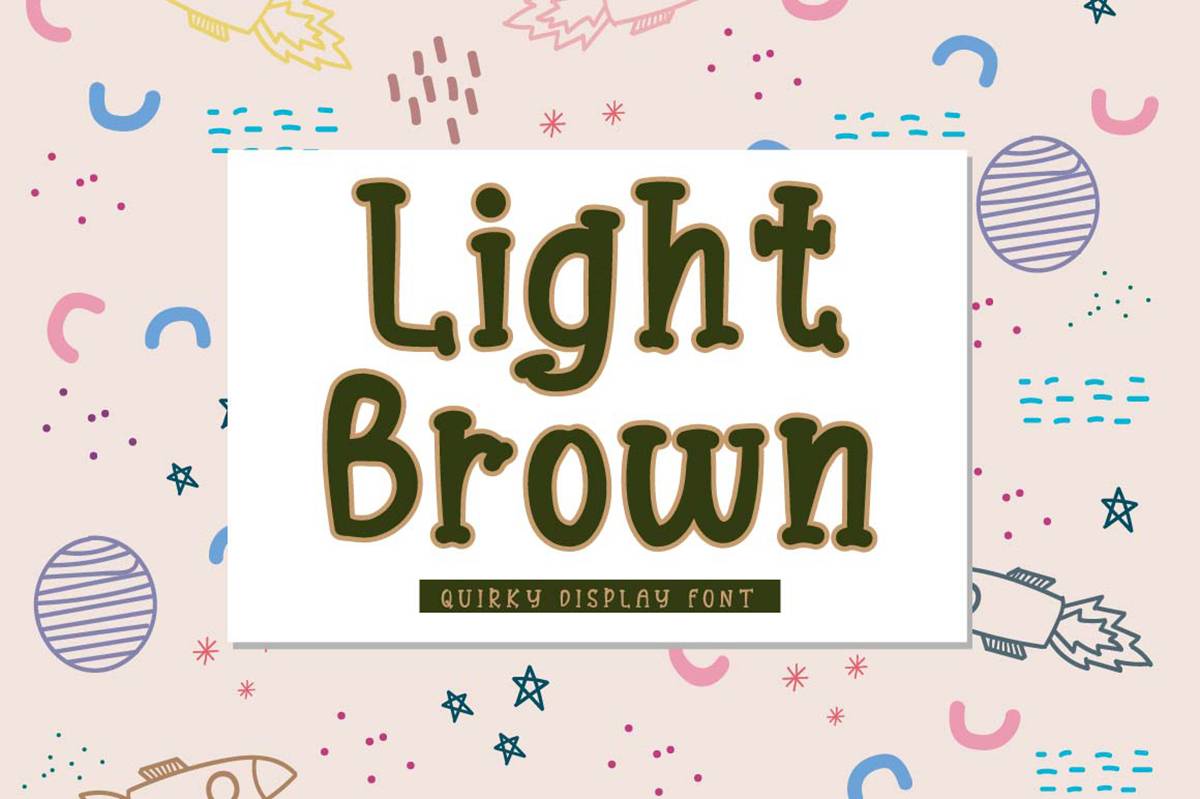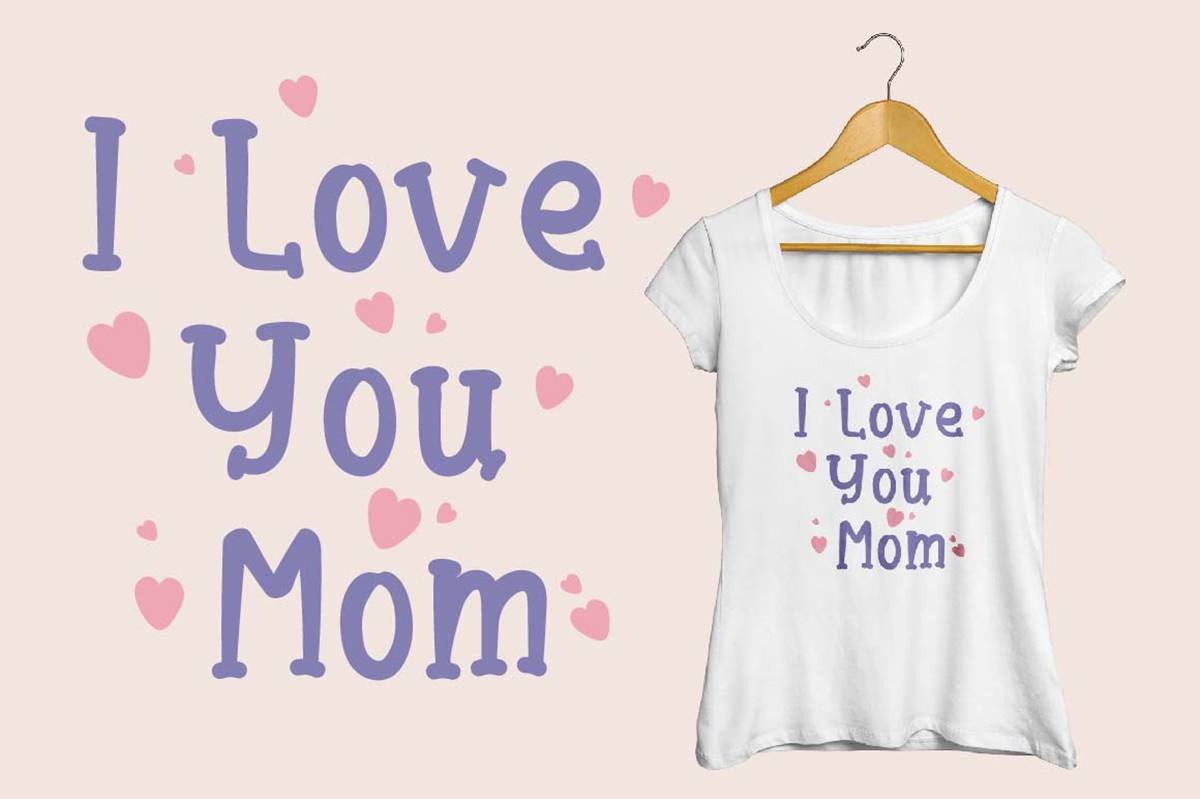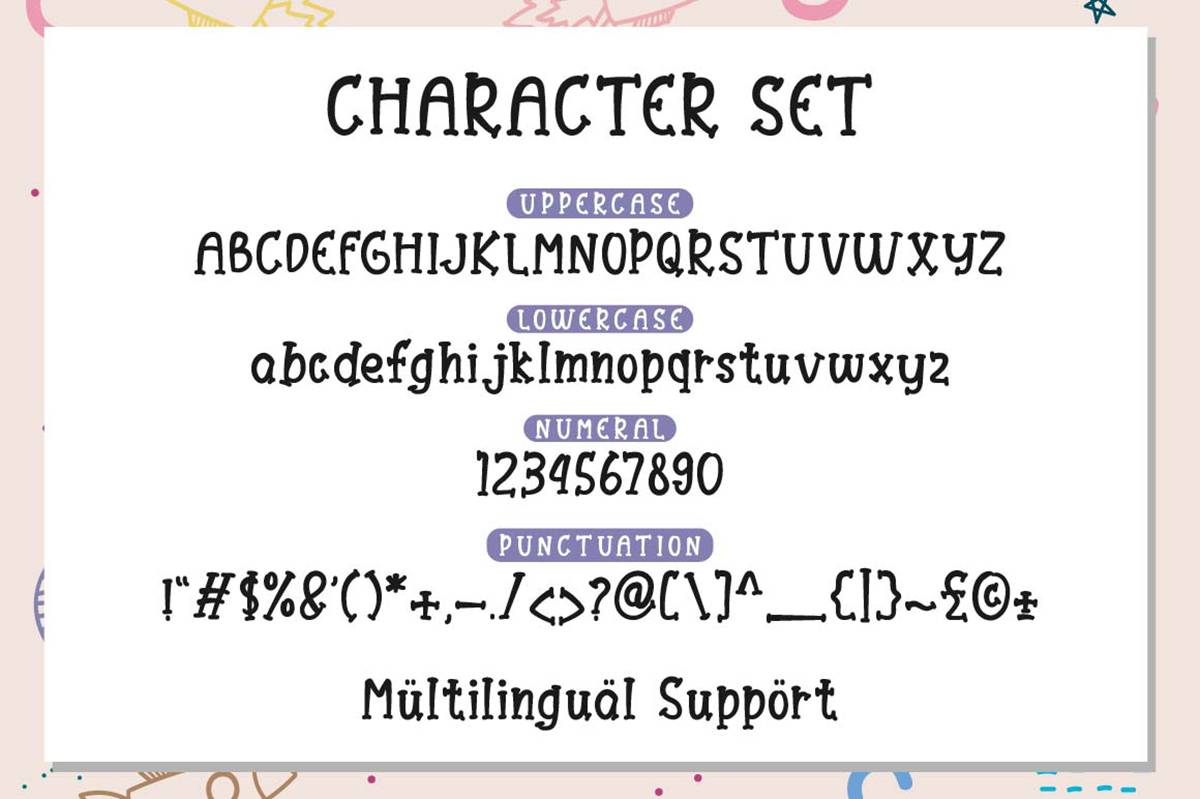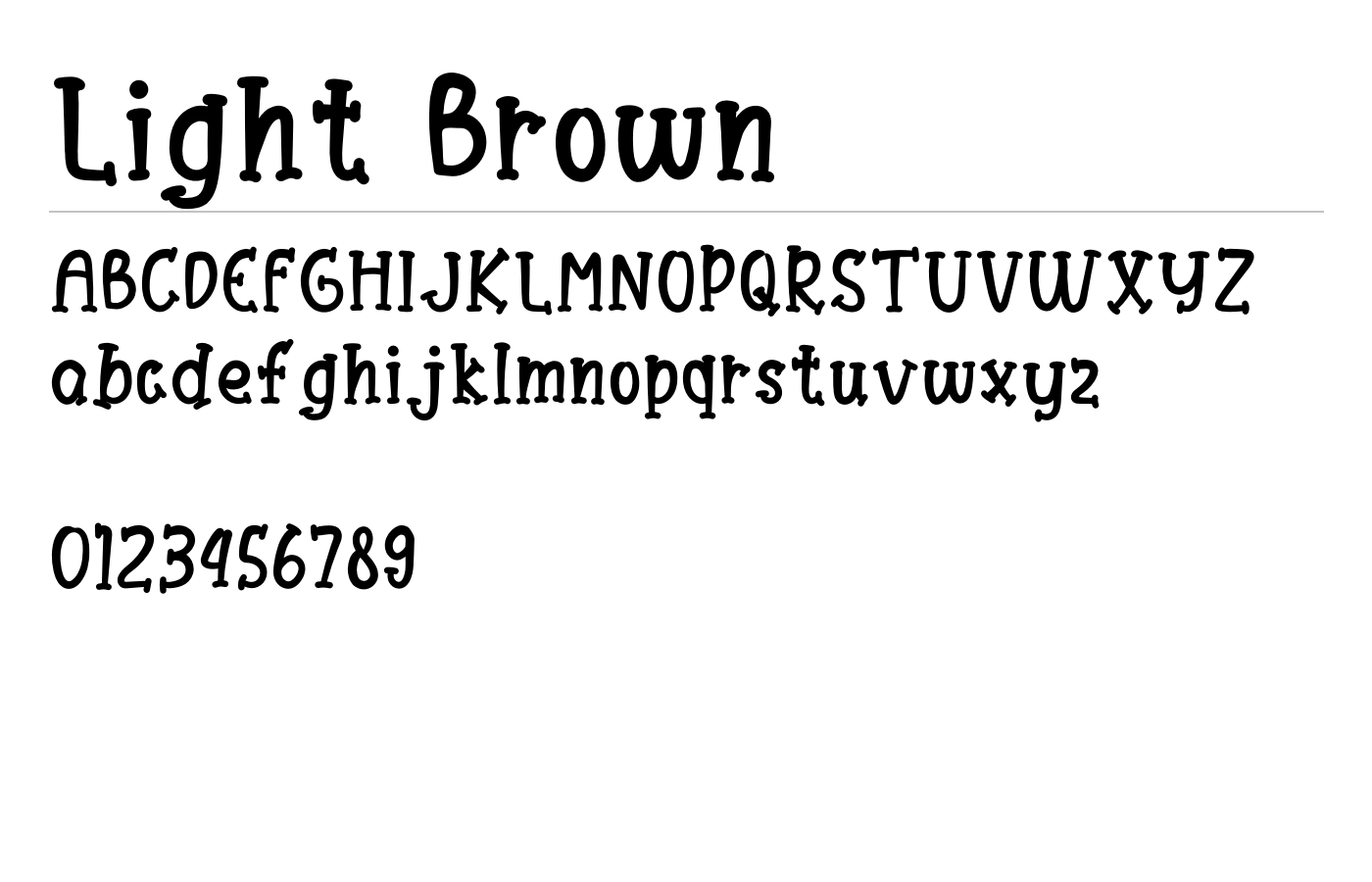
Light Brown is a playful, whimsical serif font with a hand-drawn feel, featuring uneven strokes and quirky letterforms that give it a charming, casual personality. Its moderate weight and slightly condensed proportions make it ideal for creative projects, children’s books, or branding that seeks a friendly and approachable vibe. This font works best in headlines, logos, or any design needing a fun and lively touch without sacrificing legibility.